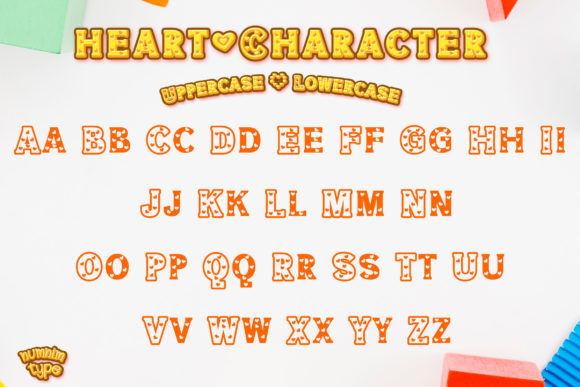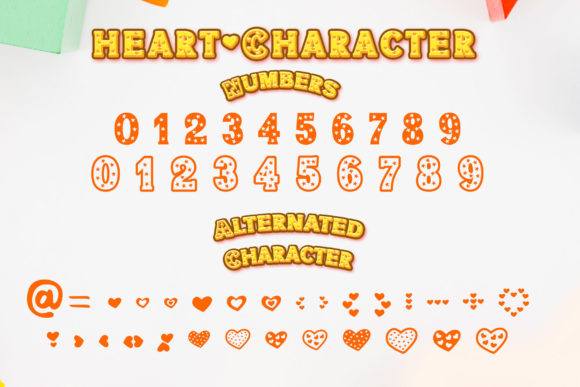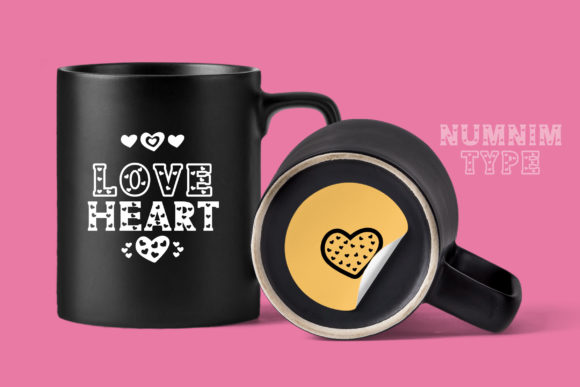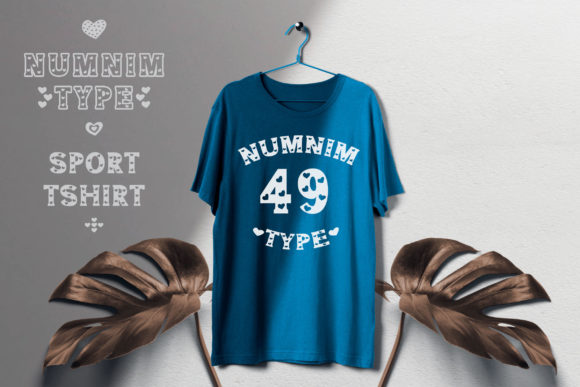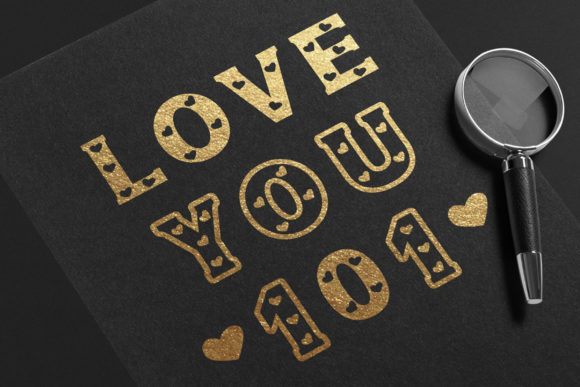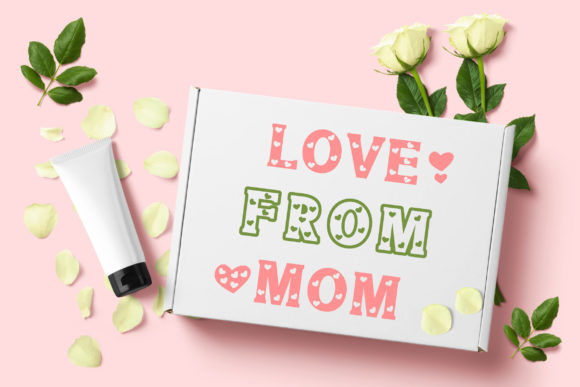
Introducing Heart Font: The Ultimate Display Font for Creative Projects
Are you looking for a font that can add a touch of fun, coolness, and jollity to your designs? Look no further than Heart Font! This amazing display font is perfect for a wide range of creative projects, from cartoon-related designs and children’s games to quotes, titles, brand names, book covers, posters, and more.
What Makes Heart Font So Special?
Heart Font is a unique and versatile font that can elevate any design project with its playful and charming style. Its distinctive features include:
- Wide Range of Applications: Whether you’re designing a children’s book, creating a poster, or developing a brand identity, Heart Font is a great choice. Its versatility makes it suitable for a wide range of projects, from playful and fun to serious and professional.
- Beautiful and Unique Design: Heart Font features a beautiful and unique design that is sure to capture attention. Its fun and jolly style makes it perfect for designs that require a touch of personality and whimsy.
Why Choose Heart Font for Your Design Projects?
There are many reasons why Heart Font is a great choice for designers and crafters. Here are just a few:
- High-Quality Design: Heart Font features a high-quality design that is sure to impress. Its unique and playful style makes it perfect for designs that require a touch of personality and whimsy.
- Versatility: Heart Font is a versatile font that can be used for a wide range of projects. Whether you’re designing a children’s book or creating a poster, this font is a great choice.
- Time-Saving: With Heart Font, you can save time and effort in your design projects. Its ease of use and high-quality design make it a great choice for designers who need to work efficiently.
How to Use Heart Font in Your Design Projects
Using Heart Font in your design projects is easy! Here are a few tips to get you started:
- Choose the Right Project: Heart Font is perfect for a wide range of projects, from cartoon-related designs and children’s games to quotes, titles, brand names, book covers, posters, and more.
- Experiment with Different Styles: Heart Font features a range of glyphs and swashes that can be used to create unique and interesting effects. Experiment with different styles to find the one that works best for your project.
- Pair it with Other Fonts: Heart Font can be paired with other fonts to create a unique and interesting effect. Try pairing it with a serif font for a contrasting look.
In conclusion, Heart Font is a cool, fun, and jolly display font that is perfect for a wide range of creative projects. Its unique and playful style, combined with its ease of use and versatility, make it a great choice for designers and crafters. Whether you’re designing a children’s book, creating a poster, or developing a brand identity, Heart Font is a great choice. So why not give it a try and see how it can elevate your design projects?